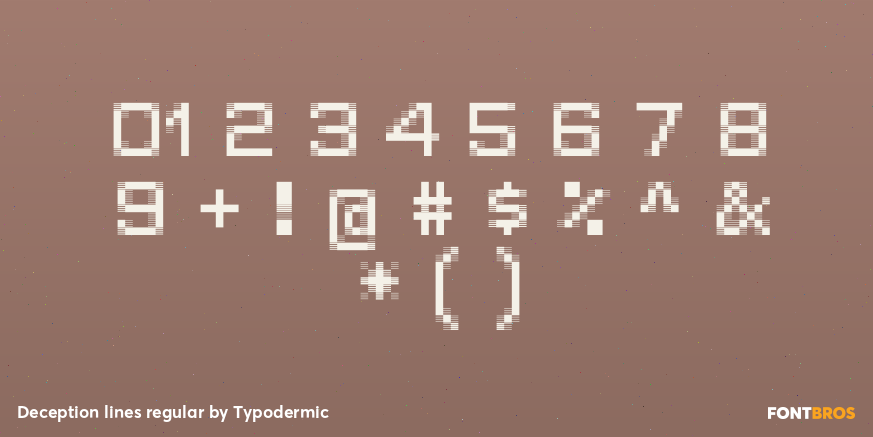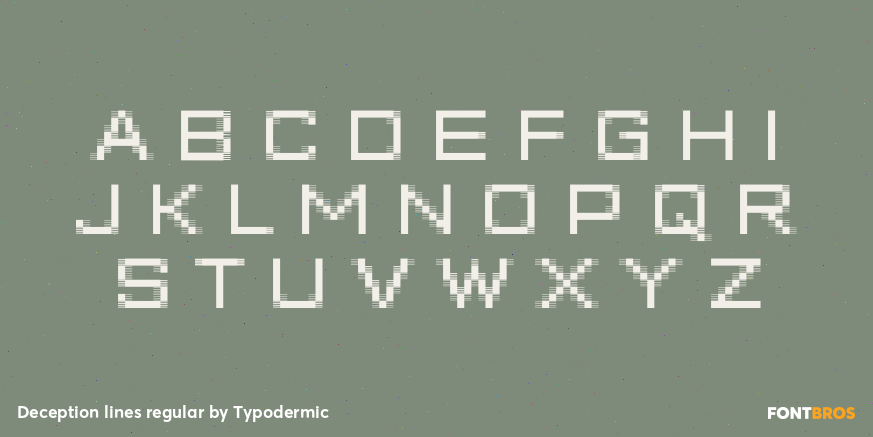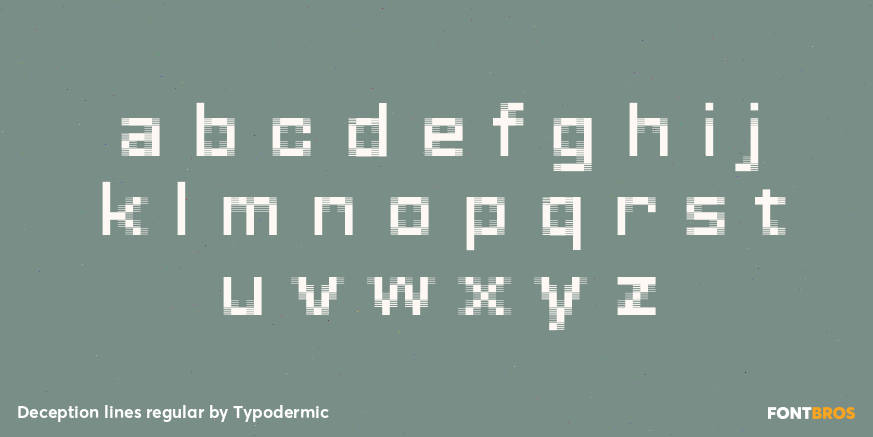
Deception lines regular
Deception Lines draws the tonal structure into repeated linear traces, suggesting thermal scans, radar sweeps, spectrograms, or an image stretched through a measurement system. The letters appear recorded rather than simply drawn, with direction and interference built into their surface.
Use Lines for remote-sensing reports, weather-radar graphics, medical-imaging events, audiovisual performances, scanner demonstrations, and documentary sequences about surveillance or transmission. Regular suits section titles and labels; Bold gives large screens and campaign headlines a denser signal.
Deception lines regular by Typodermic